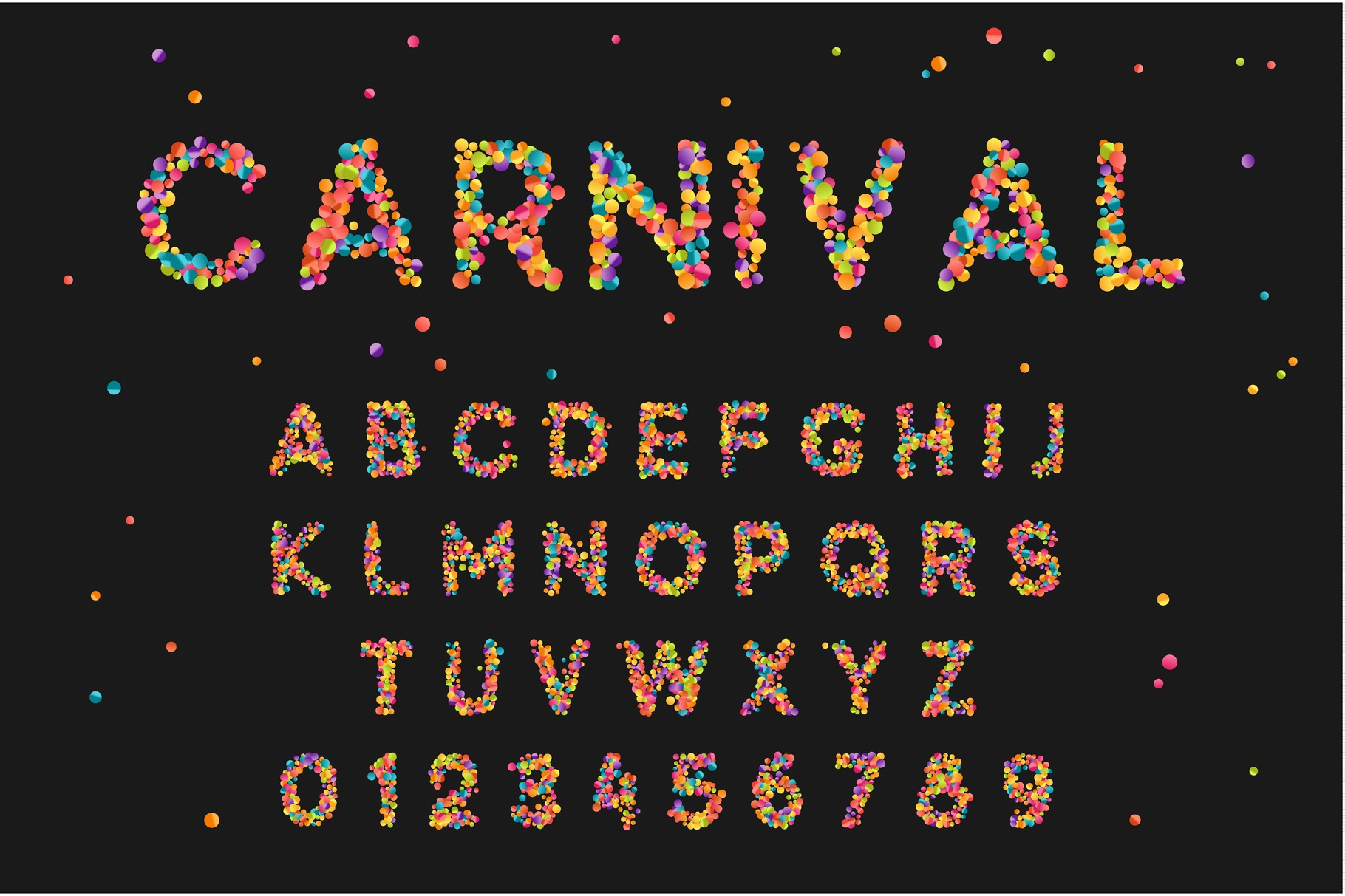
Font alphabet of colored confetti.
Font alphabet of colored confetti. Festive carnival letters, birthday, Brazilian festival of paints. Set holiday symbol. Celebrate anniversary numbers. Vector isolated on black background